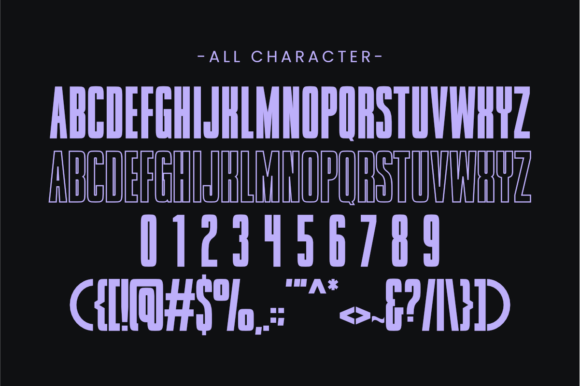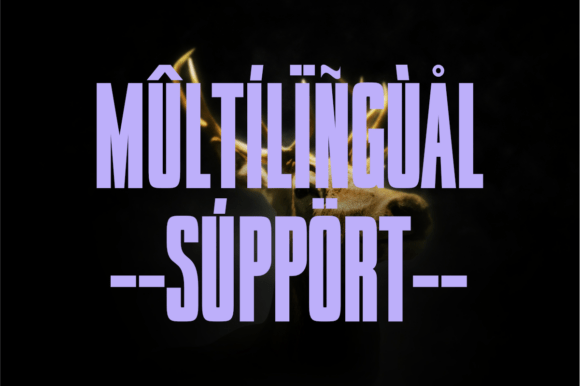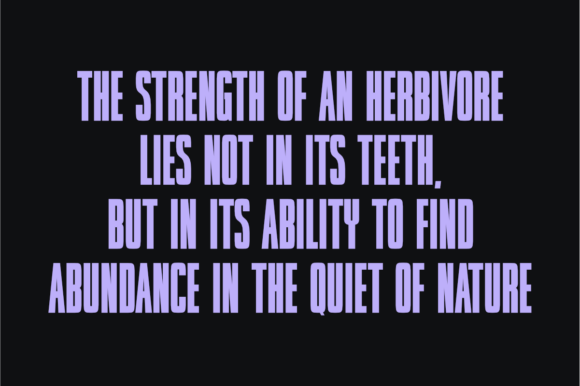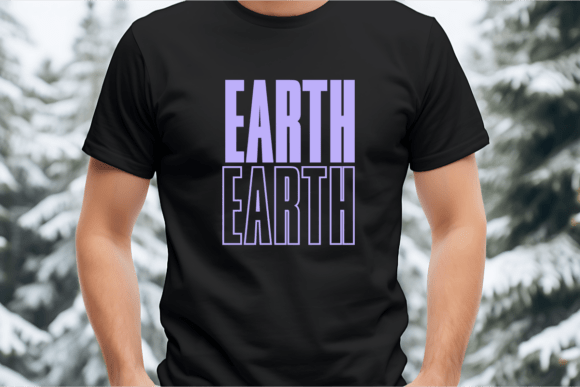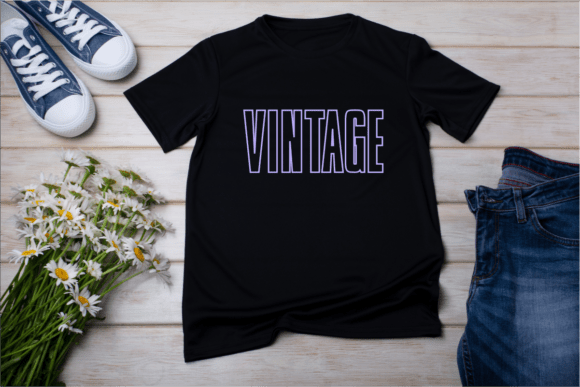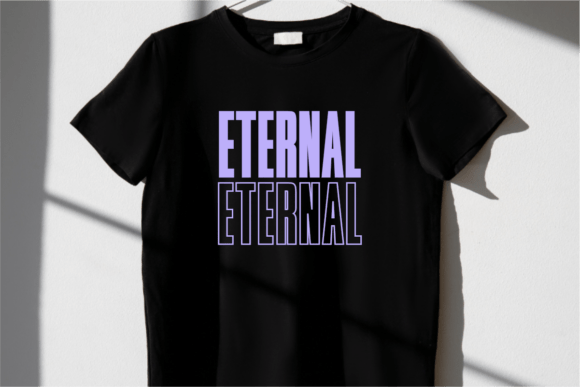
Introduction to Herbivora Font
Enter the realm of “Herbivora”, the epitome of ultramodern condensed sans serif typography.
Exuding an avant-garde class with its slender, chic style, Herbivora seamlessly enhances a myriad of creative mediums, from graphic artistry to street couture to trendsetting apparel Possessing an intrinsic versatility, Herbivora excels in the world of print-on-demand, sublimation methods, and an expansive sphere of creative endeavor.
Key Features of Herbivora Font
Why Choose Herbivora Font?